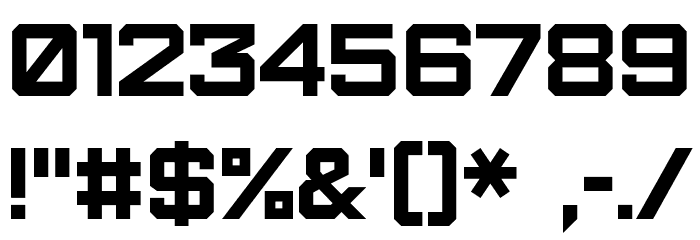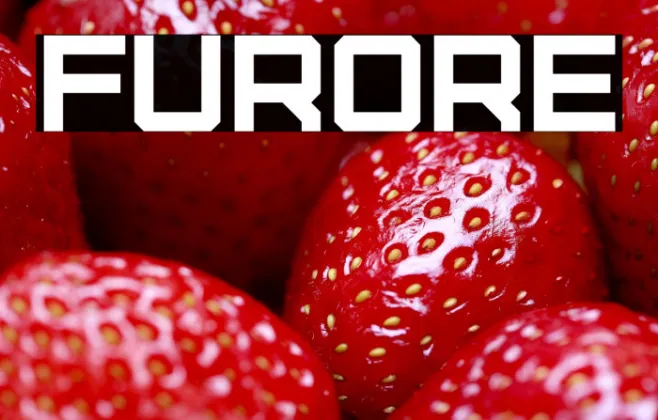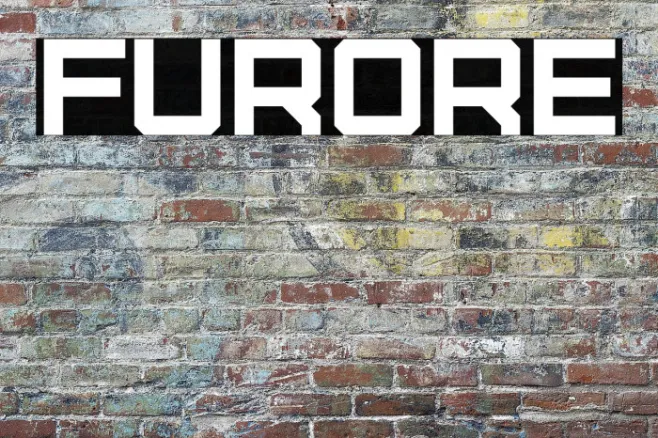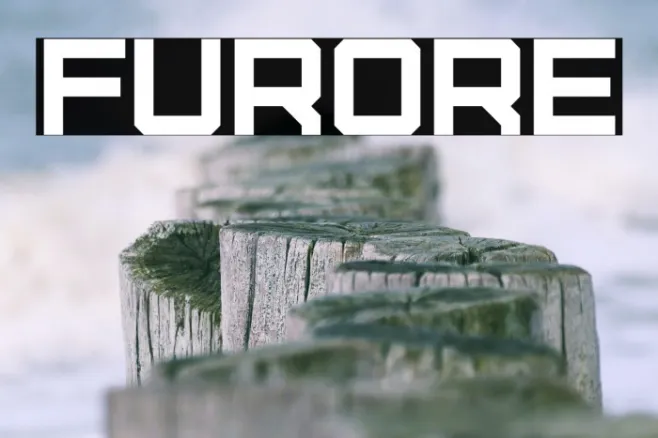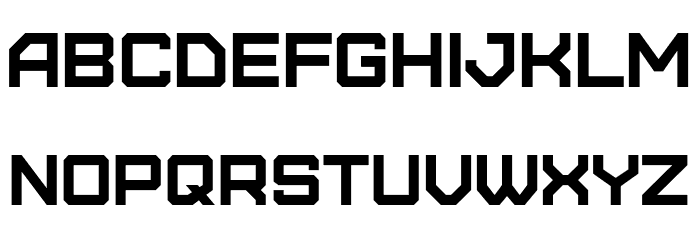
Furore Font
This font features a bold, geometric design with a strong, angular structure. The characters are constructed with thick, uniform strokes, giving it a robust and impactful appearance. The uppercase letters are particularly striking, with sharp edges and a modern, industrial feel. The numerals and special characters maintain this bold aesthetic, ensuring consistency across all glyphs. The font's design is both futuristic and retro, making it versatile for various creative applications. Its boldness and geometric precision make it ideal for attention-grabbing headlines and logos.
A bold, geometric font with a modern, industrial aesthetic.
• Proposed Projects: Ideal for branding, posters, headlines, and any project requiring a strong visual impact.
• Category: Decorative/Display
• Contrast: Low
• Overall Style: Modern
• Use Case: Headlines, Logos